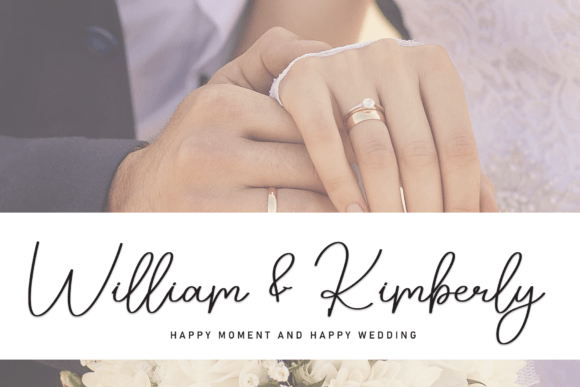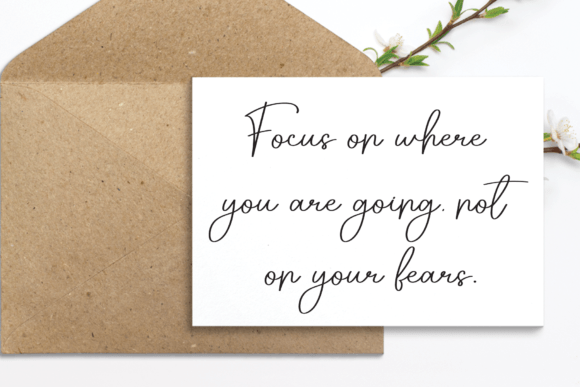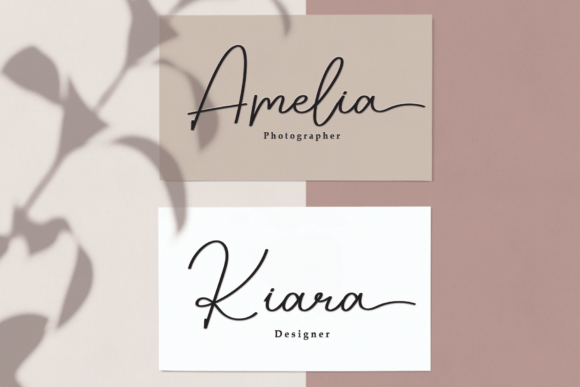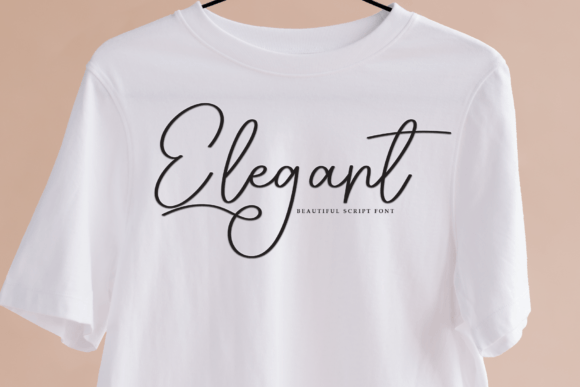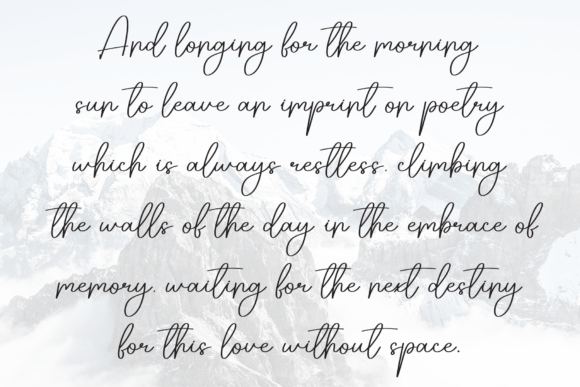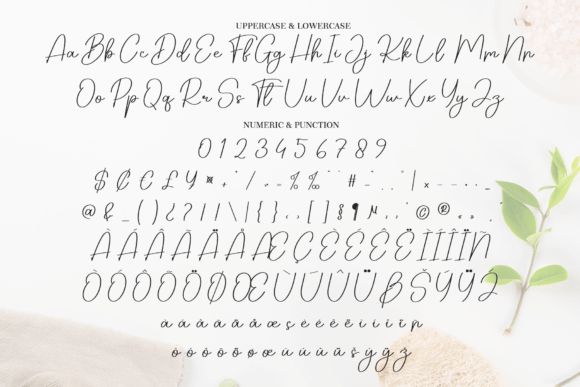
Introducing Beautyspa Font: Elevate Your Designs with Elegant Typography
Are you a designer, crafty enthusiast, or business owner looking for the perfect font to elevate your visual projects? Look no further than the Beautyspa Font, a stunning typeface that embodies elegance and sophistication. This versatile font is ideal for a wide range of applications, from wall displays and wedding invitations to social media posts, logos, advertisements, product packaging, and more.
The Latest Style Letters for Modern Designs
Beautyspa Font boasts the latest style letters that are perfect for creating visually appealing designs. Its unique and tasteful handwriting style makes it an excellent choice for designers and crafters seeking to add a touch of luxury to their projects. Whether you’re working on a wedding invitation, a product label, or a social media post, this font is sure to impress.
Beautyspa Font is an incredibly versatile typeface that can be used for a wide range of design projects, including:
- Wall displays: Create stunning wall art, quotes, and posters that showcase your creativity.
- Wedding invitations: Add a touch of elegance to your wedding stationery and save-the-date cards.
- Social media posts: Elevate your social media presence with eye-catching graphics and quotes.
- Logos and branding: Establish a strong brand identity with a unique and memorable logo.
- Advertisements: Create attention-grabbing ads that showcase your products or services.
- Product packaging: Add a touch of sophistication to your product labels and packaging.
- Product designs: Create beautiful product designs, such as custom phone cases, mugs, and more.
- Labels and watermarks: Use Beautyspa Font to create custom labels and watermarks for your products or photos.
- Invitations and stationery: Design stunning invitations, greeting cards, and stationery that showcase your personal style.
Why Choose Beautyspa Font?
With Beautyspa Font, you’ll enjoy a range of benefits that make it an excellent choice for designers and crafters, including:
- Elegant and sophisticated design: Beautyspa Font boasts a unique and tasteful handwriting style that adds a touch of luxury to any design.
- Versatility: Use the font for a wide range of design projects, from wall displays to social media posts.